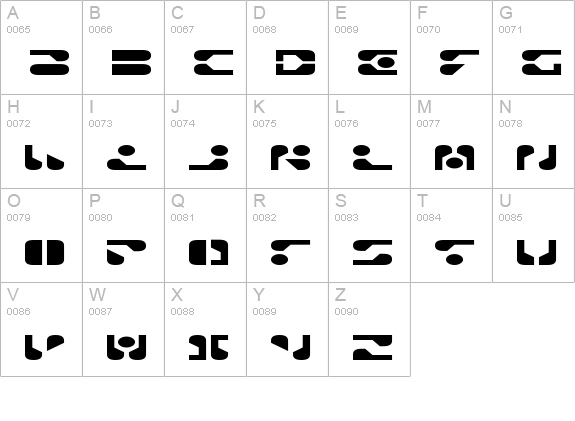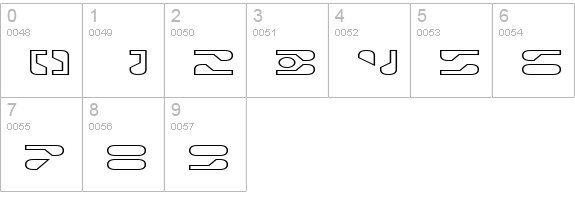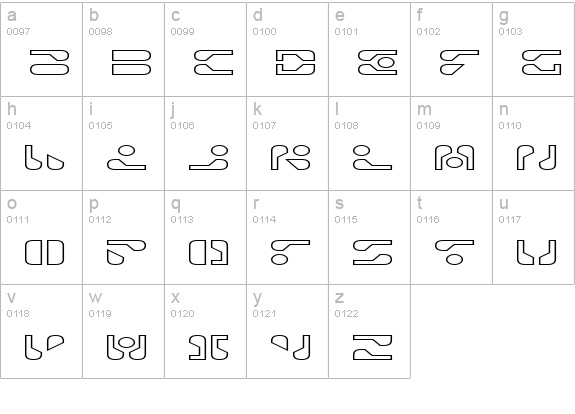
TOILET dsnp Font Details
Introducing the TOILET dsnp font, a unique and creative typeface that combines elegance with a touch of quirkiness. This font is perfect for adding a playful and whimsical touch to any design project, whether it's a poster, a greeting card, or a website. With its clean lines and bold strokes, TOILET dsnp font stands out from the crowd and grabs attention effortlessly. Its carefully crafted letterforms bring a sense of sophistication while maintaining a sense of fun and lightheartedness. What makes TOILET dsnp font even more appealing is that it is completely free to download at FontsMarket.com. This means that designers, creatives, and enthusiasts alike can freely access and utilize this font to enhance their projects without any restrictions. Whether you're a professional designer looking to add a unique touch to your client's branding or an individual wanting to create eye-catching invitations for a special event, TOILET dsnp font is the perfect choice. Its versatility allows it to adapt to various design styles and themes, making it a valuable asset in any designer's toolkit. So why wait? Head over to FontsMarket.com now and download TOILET dsnp font for free. Unleash your creativity and let this font add a touch of charm and personality to your designs.